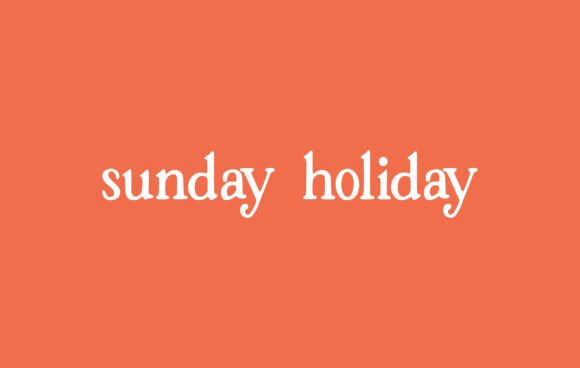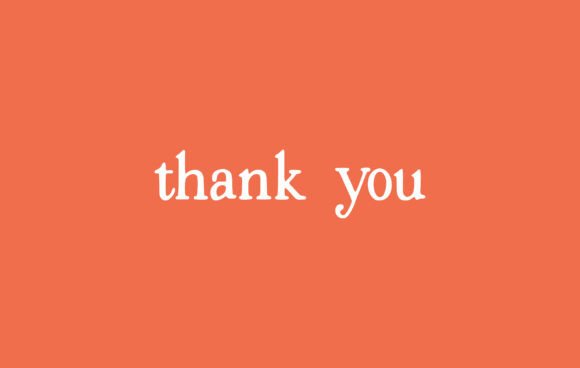
Introduction to Rhode Island Font
Rhode Island font is an authentic handwritten font with a romantic touch.
Key Features of Rhode Island Font
Why Choose Rhode Island Font?
Rhode Island Font offers exceptional quality and versatility, making it a valuable addition to your design toolkit. Whether you’re creating for personal projects or commercial use, Rhode Island Font delivers professional results.